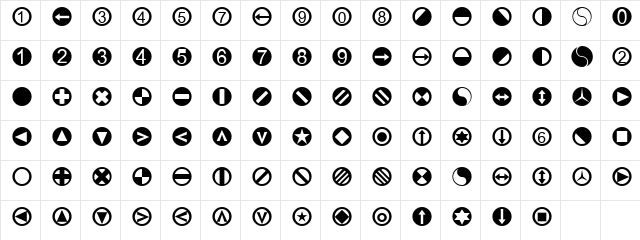
LTTapestry Circle Regular
Design Context for LTTapestry Circle Typeface
LTTapestry Circle is a composed and adaptable typeface that performs quietly and consistently across a wide range of design contexts.